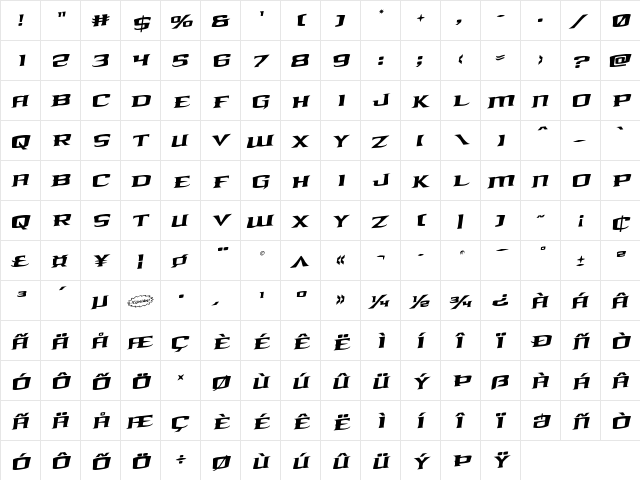
Kreature Kombat Rotalic Italic
Design Context for Kreature Kombat Rotalic Typeface
Kreature Kombat Rotalic is a composed and adaptable typeface that performs quietly and consistently across a wide range of design contexts. The dynamic lean of this cut emphasises speed and emphasis in any layout.